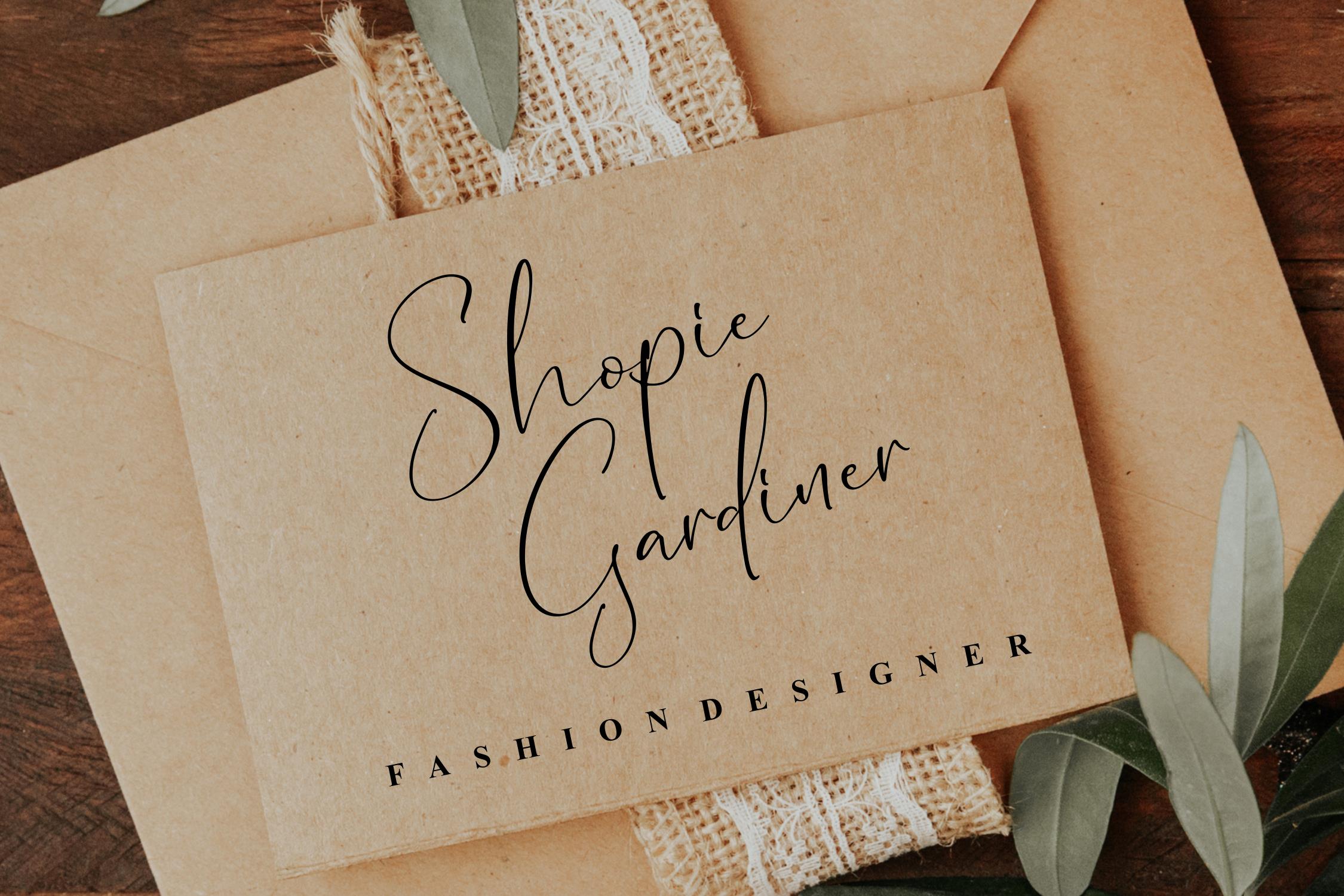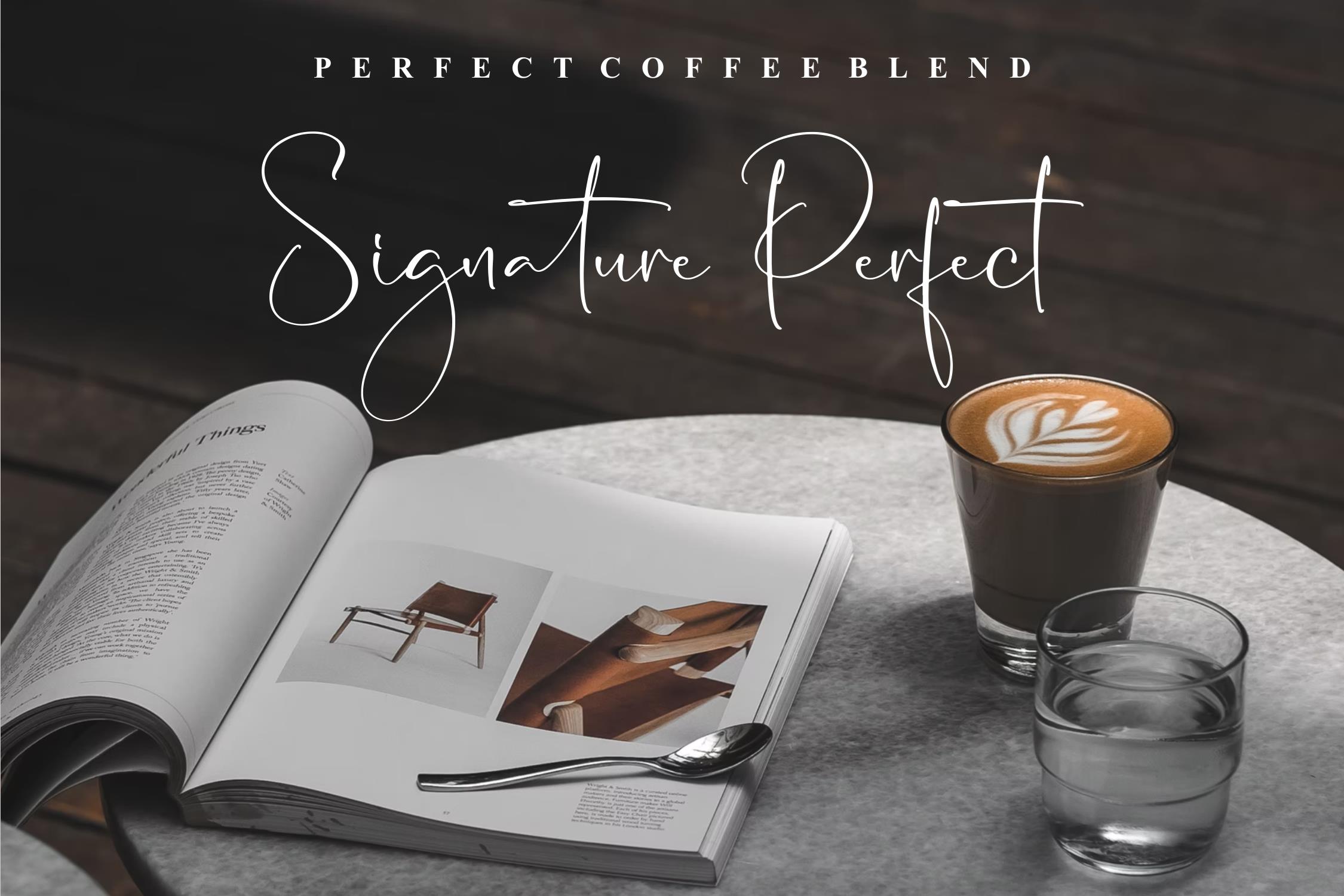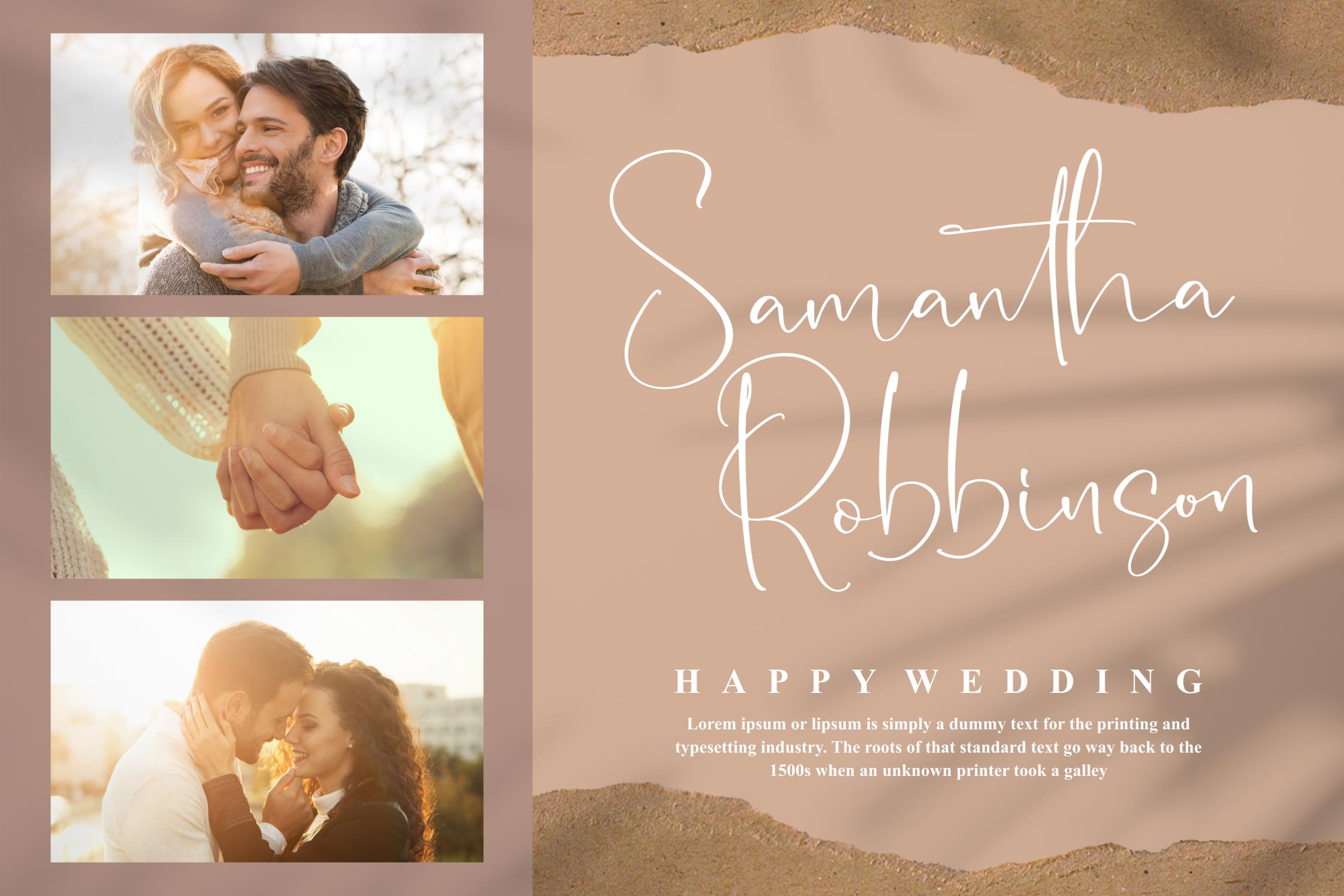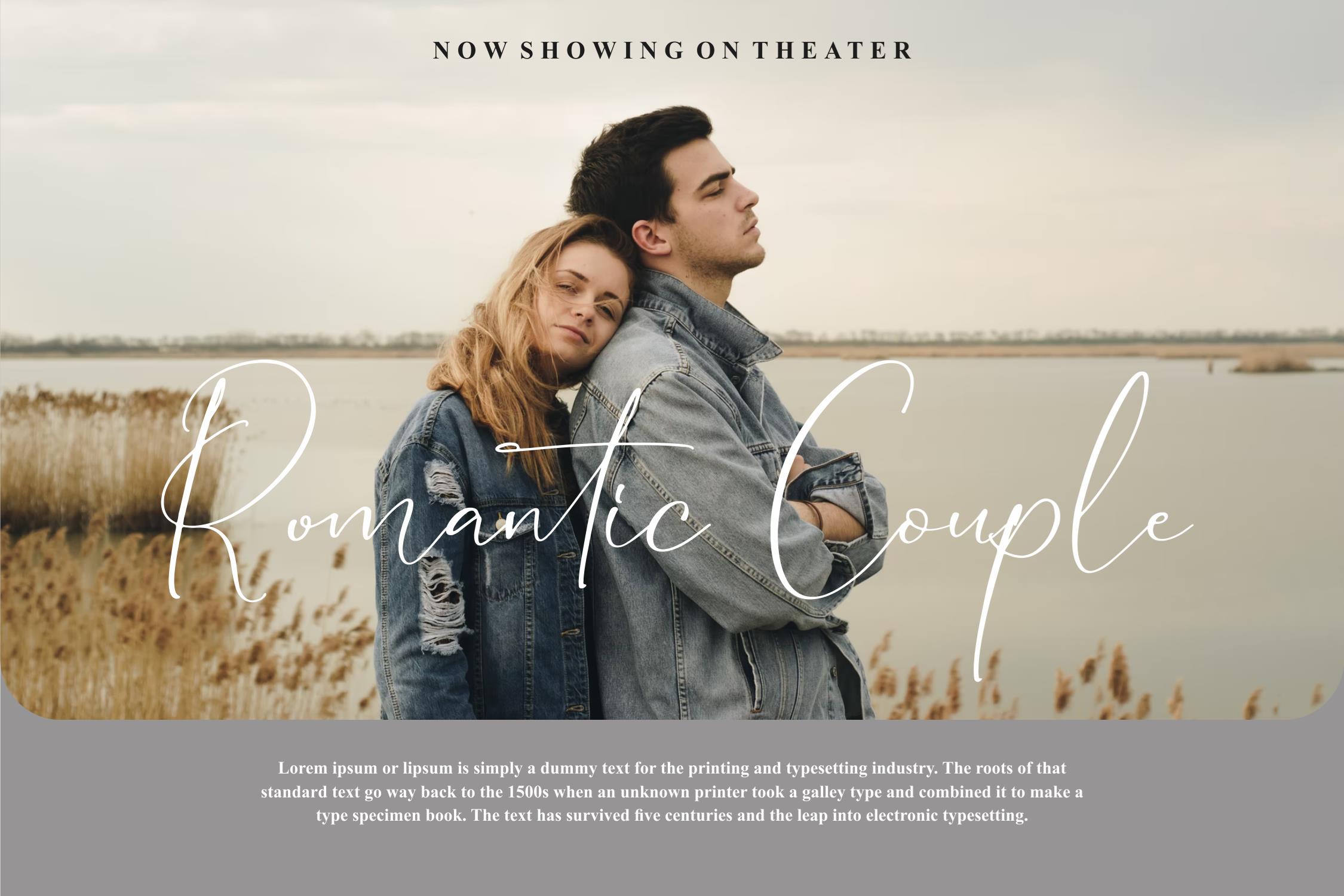
Romantical Bohelian Font
Romantical Bohelian Script Font
This is a beautiful script font, suitable for any projects such as: logos, branding projects, homeware designs, product packaging, mugs, quotes, posters, shopping bags, t-shirts, book covers, name card, invitation cards, greeting cards, label, photography, watermark, special events, and all your other lovely projects that need a beautiful script taste.